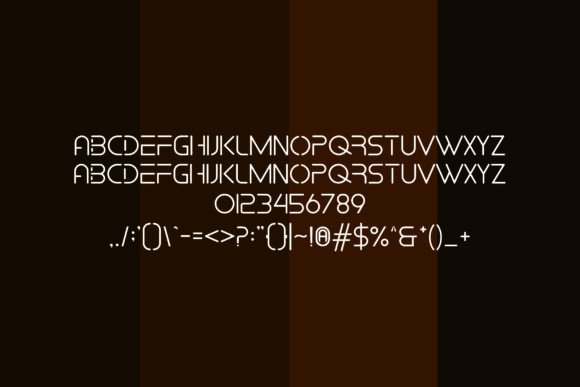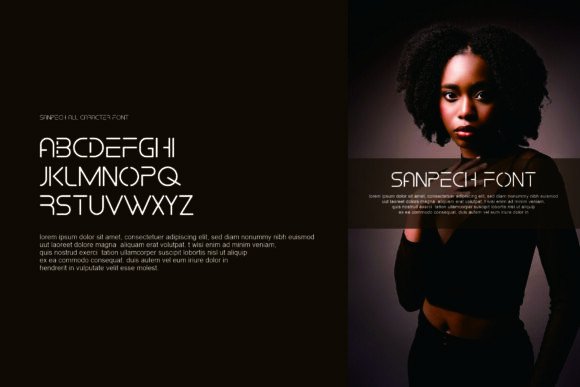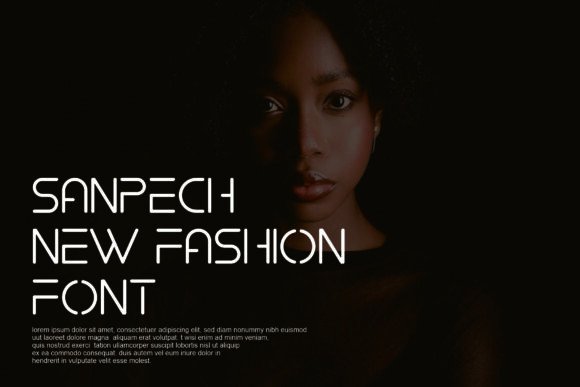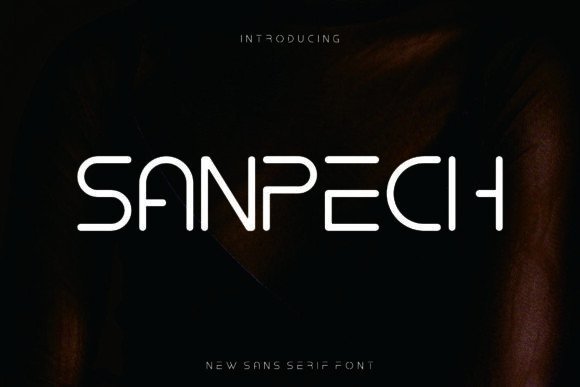
Introduction to Sanpech Font
I want to introduce this cool font, namely (Sanpech) which is a sans serif with a charming touch of style, this font also looks interesting because I added several alternative features that you can use, don’t forget to add an extrude style in it to make it look more attractive for the design.
For you, this font is suitable for those of you who want a design that displays an interesting side but is still relevant for a charming modern look .
Key Features of Sanpech Font